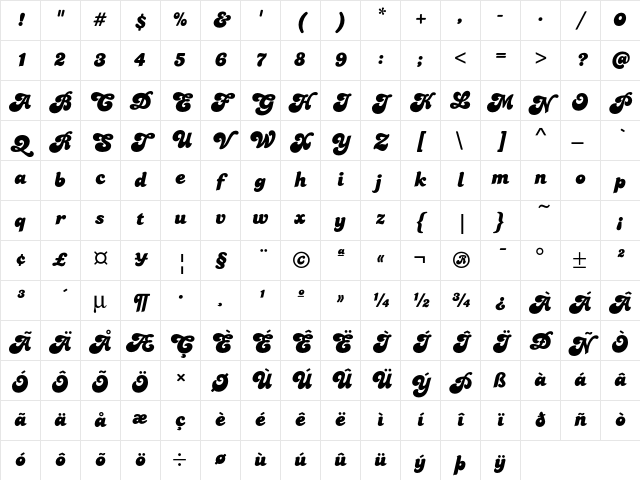
CandiceEF Regular
Design Context for CandiceEF
CandiceEF is a composed and adaptable typeface that performs quietly and consistently across a wide range of design contexts.